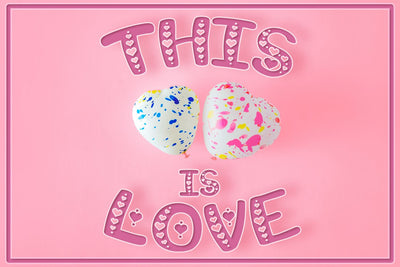
This Is Love: Valentine's Craft Font
If you had seen my fonts before, you know that I like creating playful fonts. This font is no different.
It is a handcrafted font created from scratch, using as little points as possible to ensure you get the best results with minimum difficulty.
- This is Love Regular. Comes with A-Z letters, numbers & punctuation